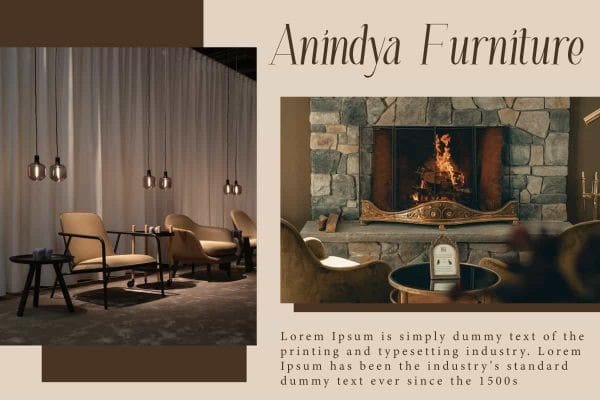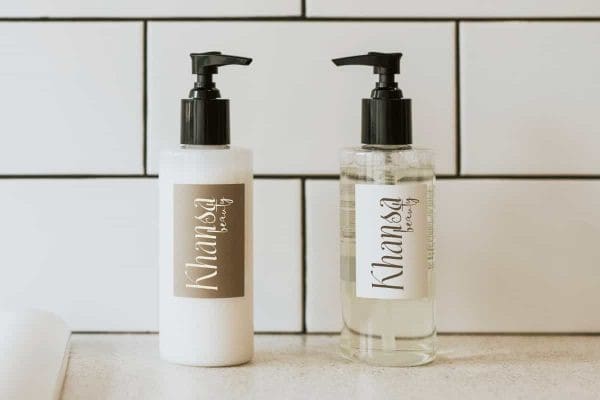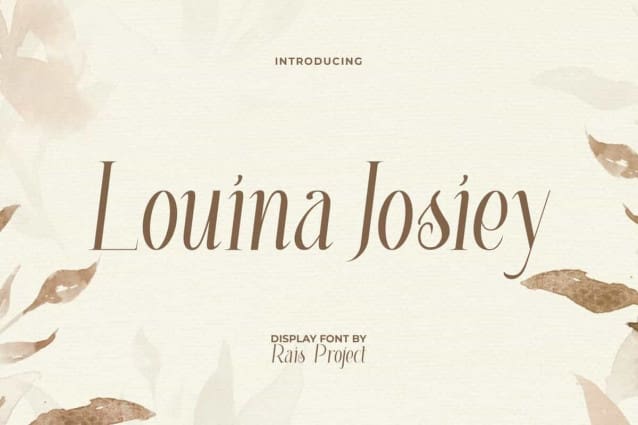
Louina Josiey Font
Louina Josiey Font is an elegant serif display font. This font carries a minimalist and simple concept to exude its luxury. It will work well in many designs, such as brand image, business card, cover, custom design, gift box, greeting card, invitation, label, menu, product packaging, quote, signage, web, and more!
Louina Josiey Font includes a full set of Uppercase and Lowercase Letters, Numerals, and large range of Punctuation. This expensive font will be suitable for various industries, such as advertisement, beauty product, event organizer, fashion, jewelry and accessories, photography, printing, publishing, etc.